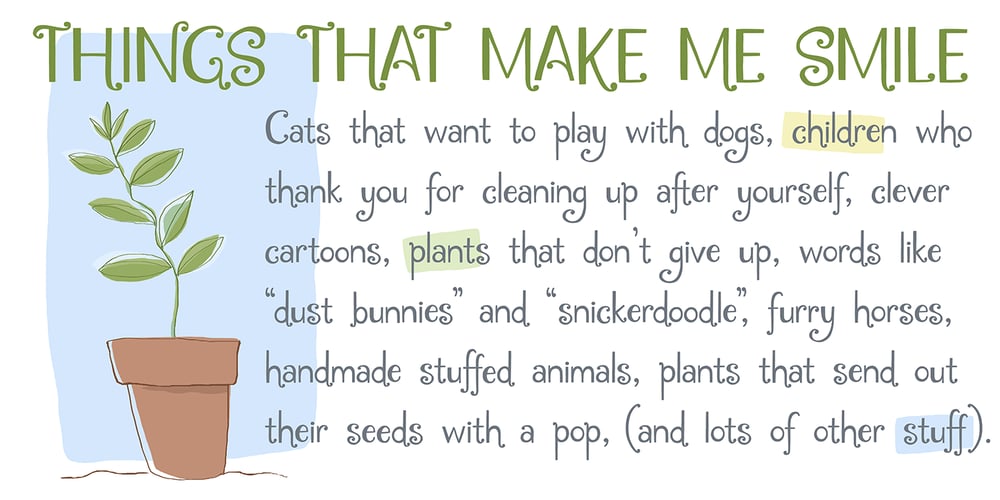
Seaglass Font Family was designed by Amy Dietrich and published by Atlantic Fonts. Seaglass contains 1 styles and family package options. Seaglass is decorative, feminine, and strong. Its whimsical curls and handmade form make a crafty statement in all-caps, and its expressive lower case invites in young and old alike – not unlike the gems found on secluded beaches. Let Seaglass transform your next packaging, poster, or book project.